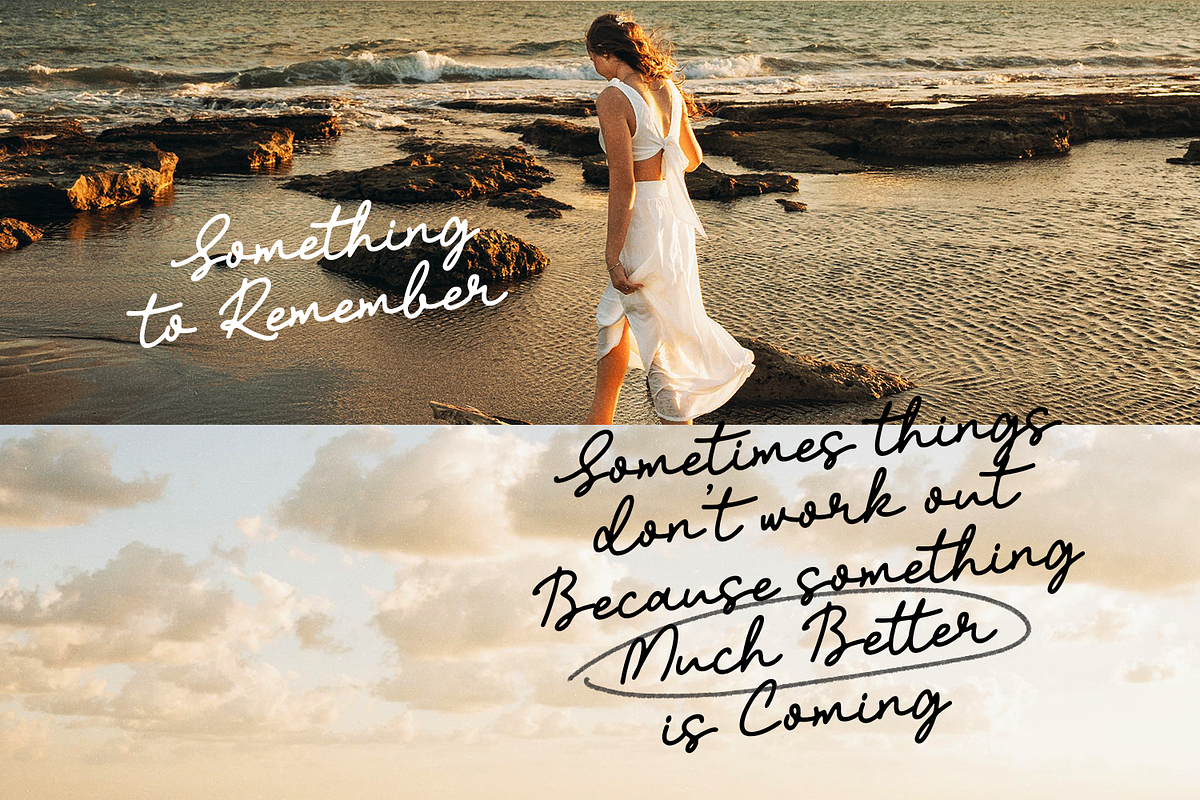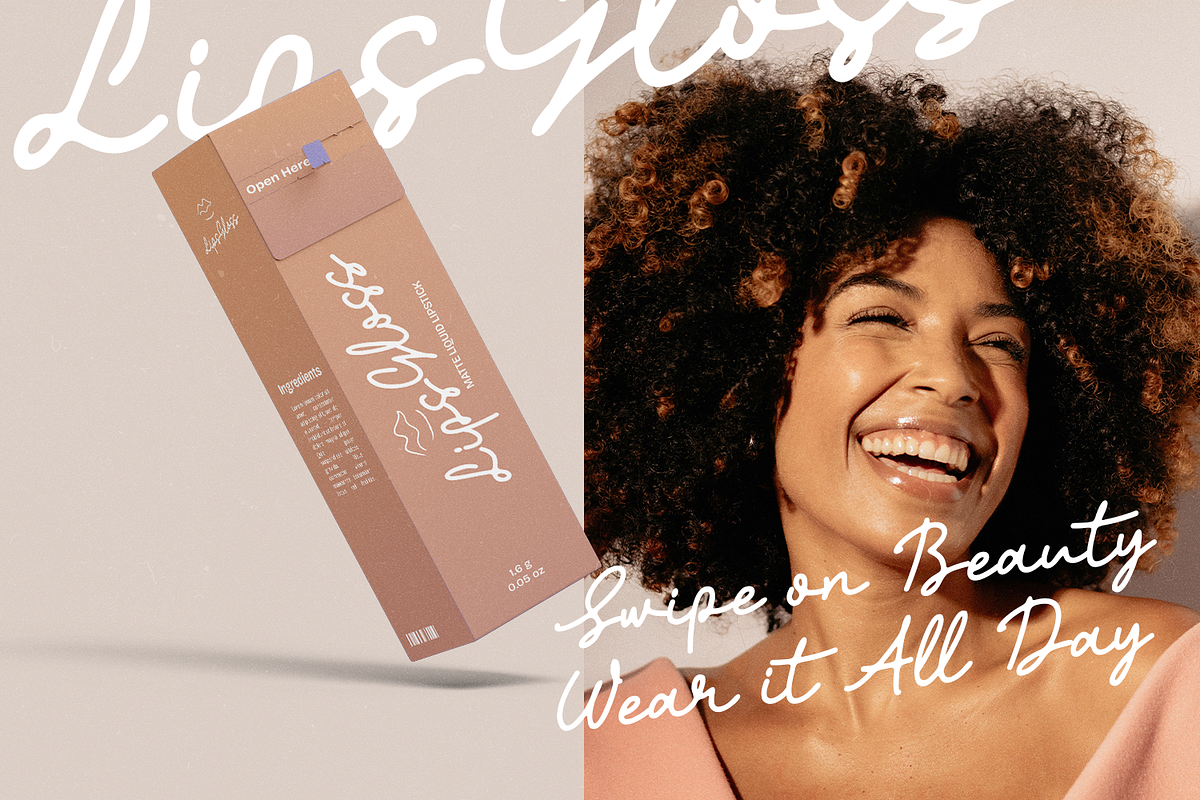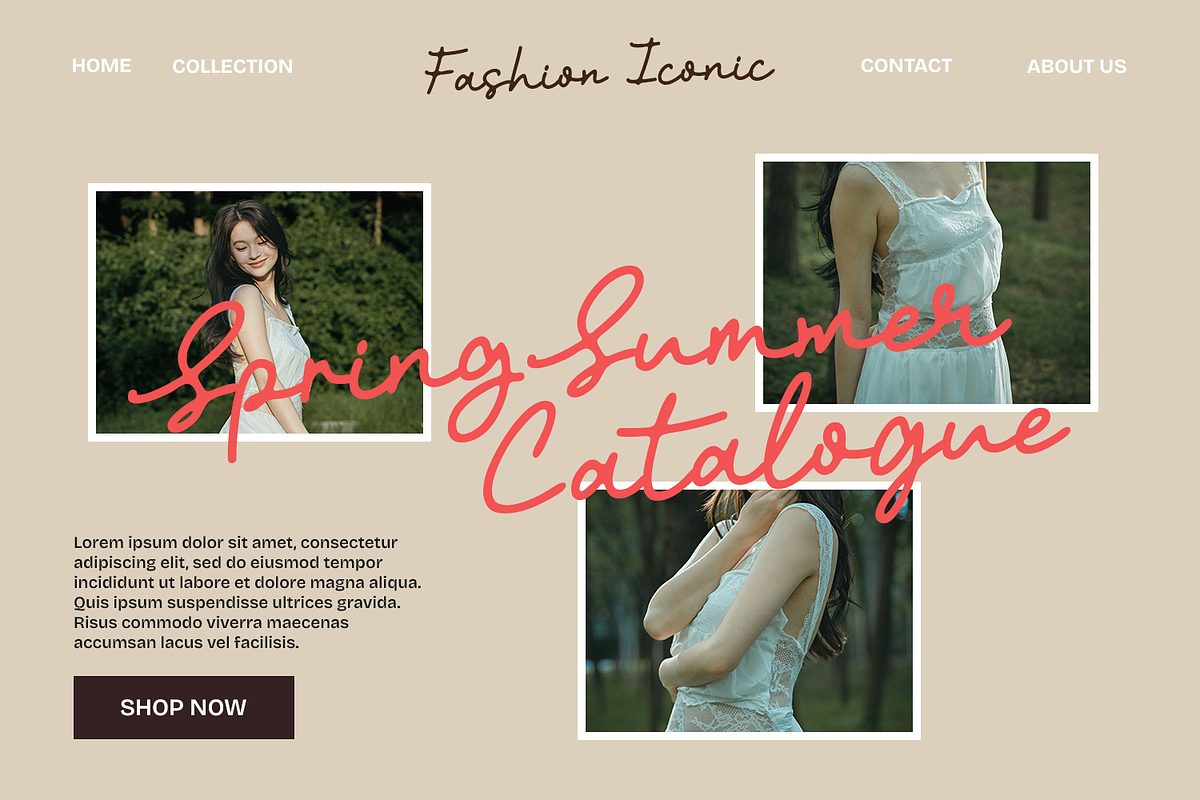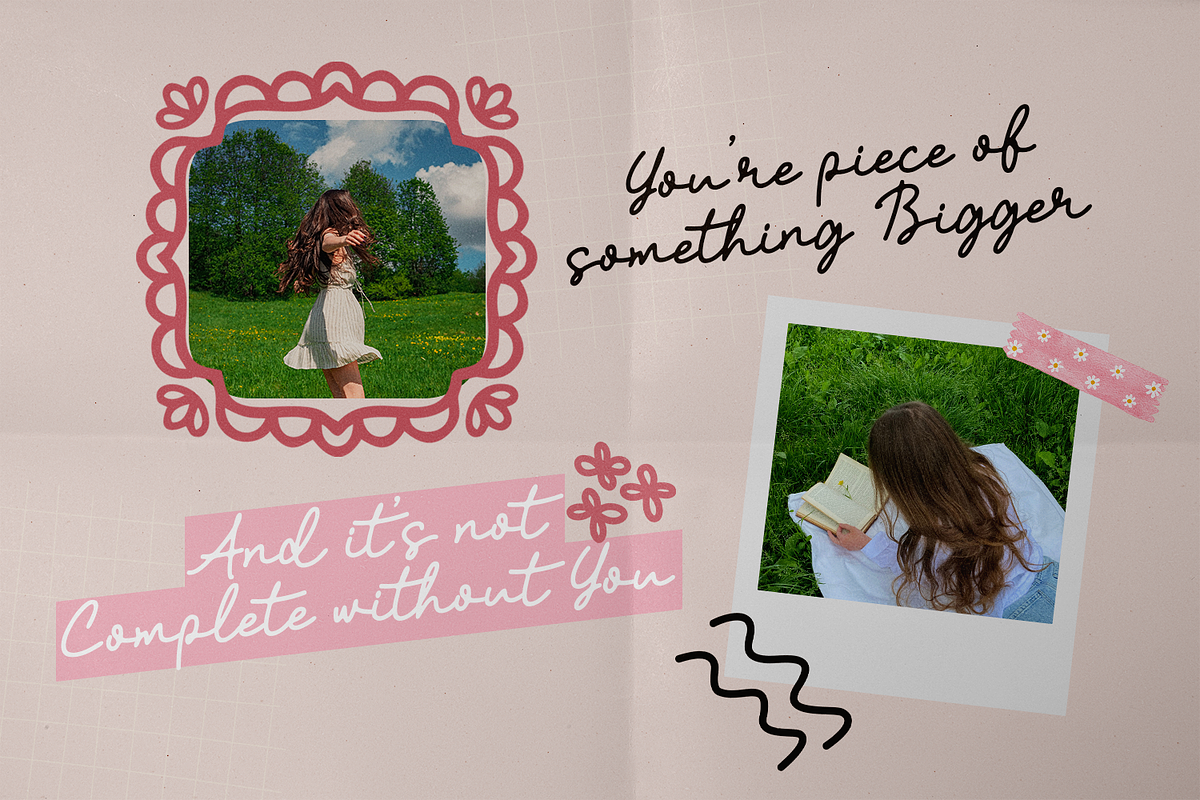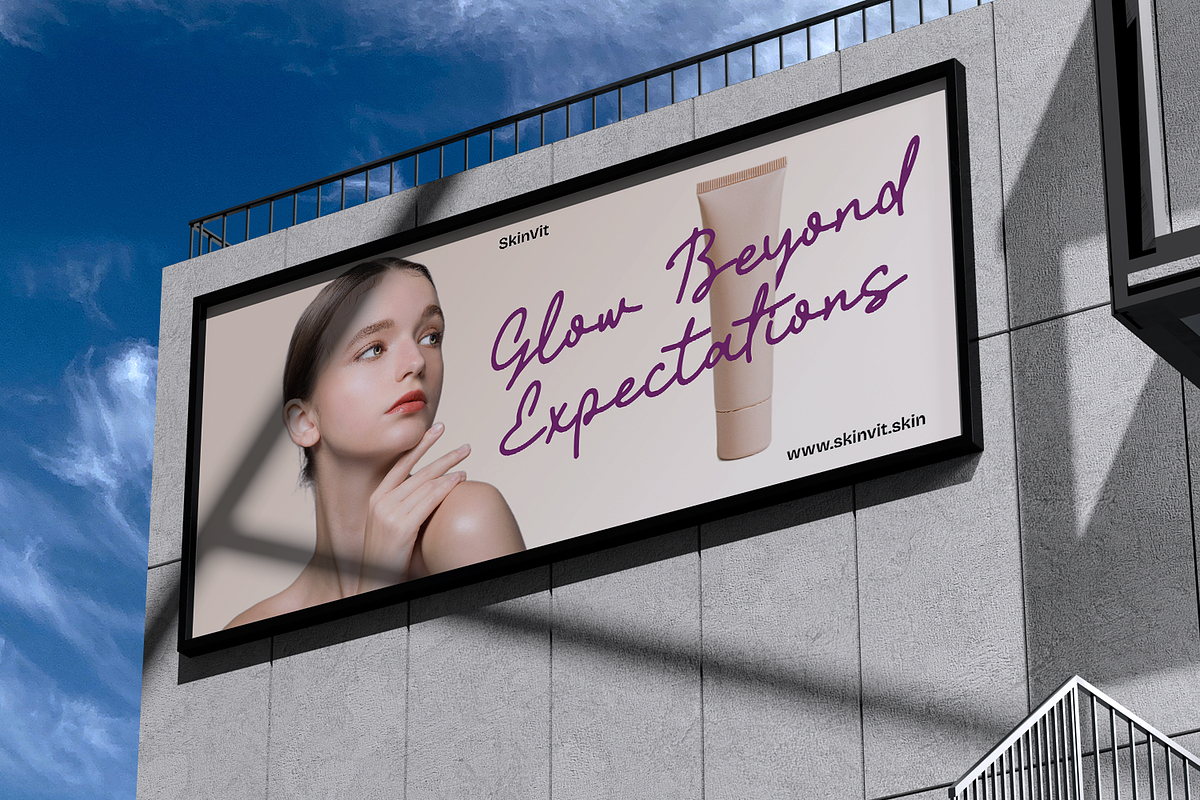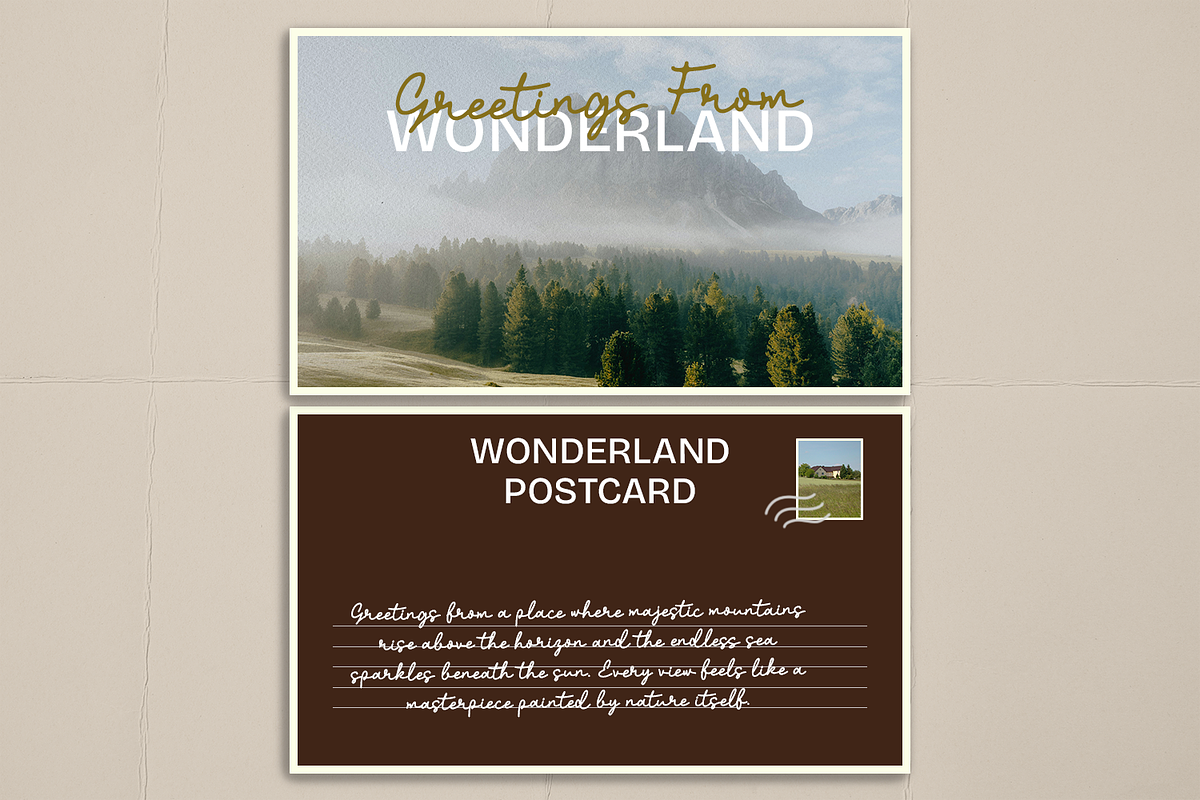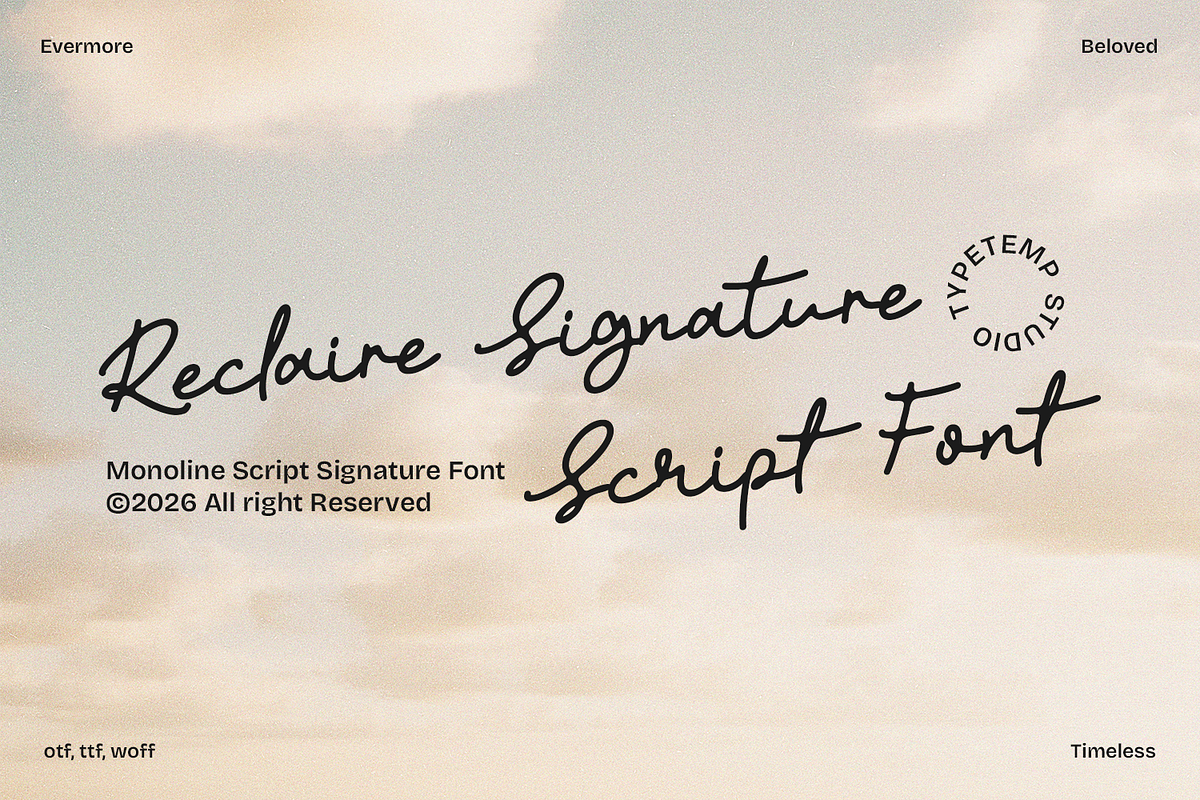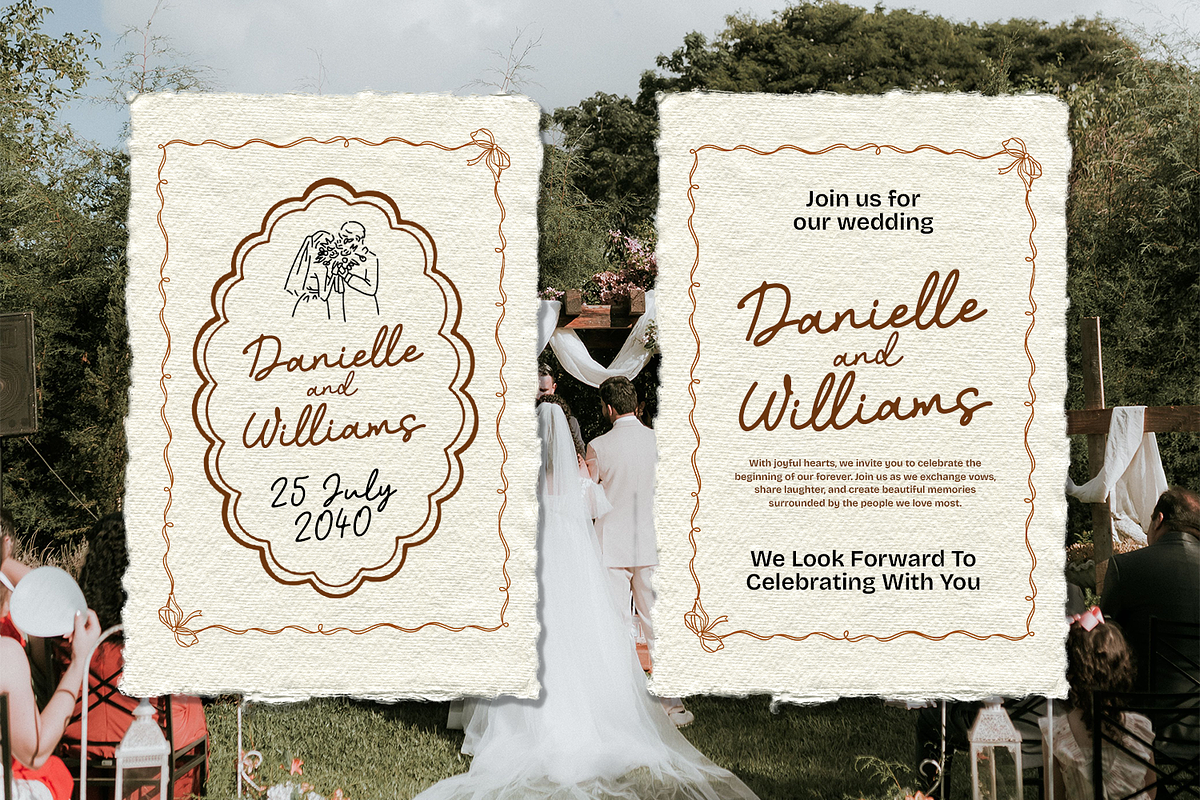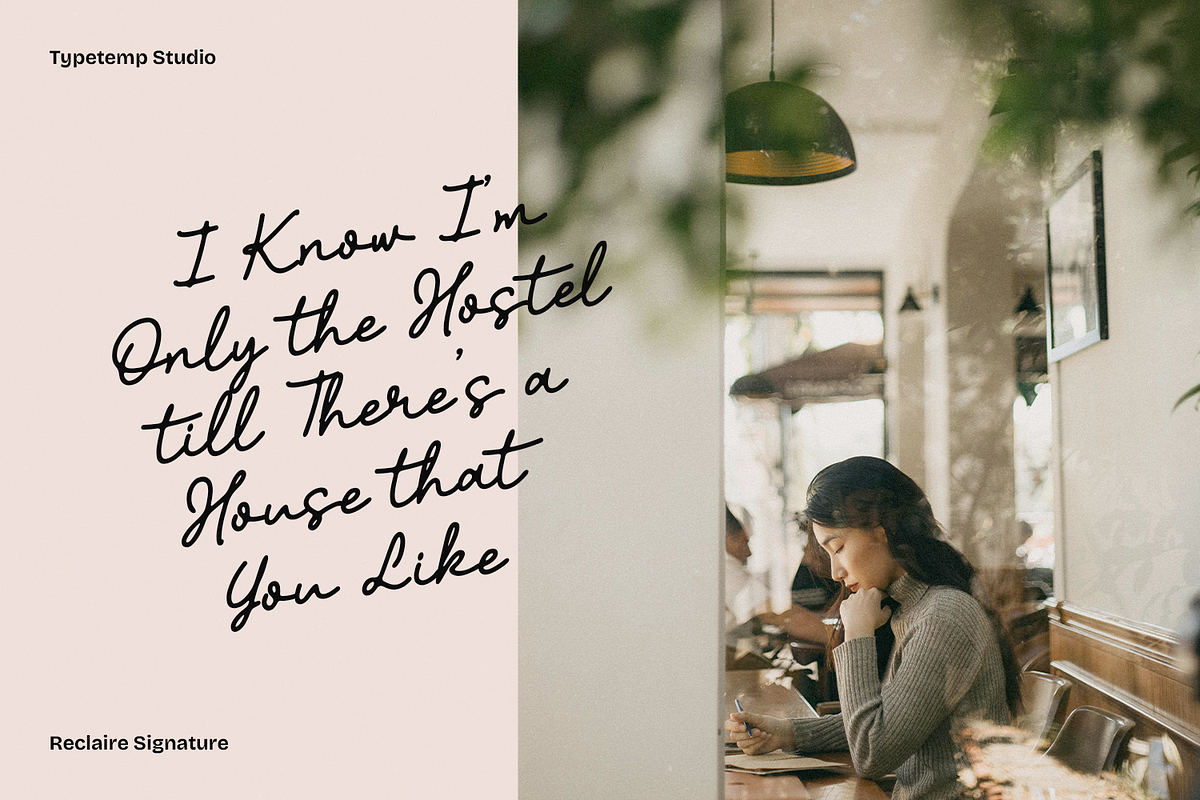
Reclaire - Monoline Signature Font
Reclaire Signature is a refined monoline script font, Featuring consistent line-weight strokes and smooth cursive connections, this typeface perfectly mimics natural, chic handwriting. Its timeless flow and elegant signature aesthetic make it an ideal choice for adding a personal, authentic touch to creative and high-end design compositions.
- Consistent monoline stroke weight for a clean signature look.
- Smooth cursive ligatures and natural character flow.
- Elegant, chic handwriting aesthetics for modern layouts.
Detailed Usage
- Branding: An exquisite choice for luxury wedding planners, boutique salons, photography watermarks, lifestyle influencers, and personal signature logotypes.
- Packaging Design: Beautifully upgrades organic cosmetic containers, specialty skincare bottles, luxury candle labels, artisanal perfume packaging, and craft products.
- Editorial & Layouts: Highly recommended for editorial columns, digital lookbook typography, quote compositions, and book cover title accents.
- Digital Content: Elevates website hero banners, aesthetic social media graphics, creative presentation slides, and video text overlays.